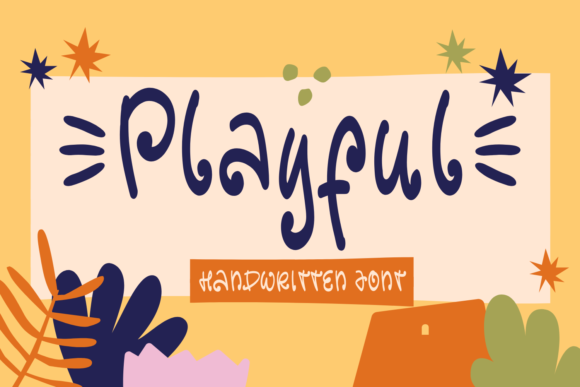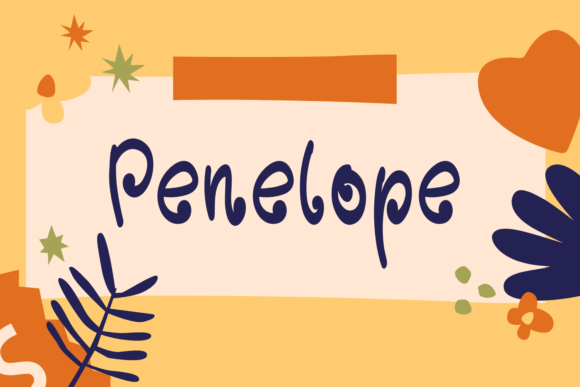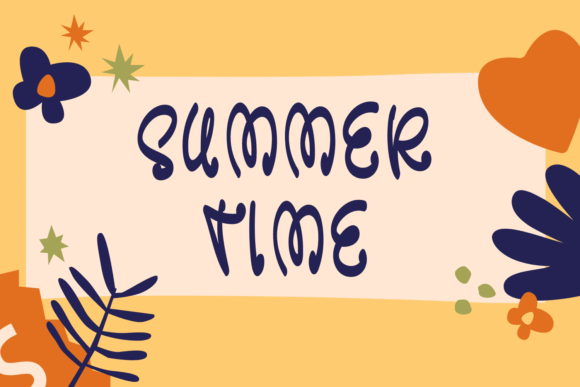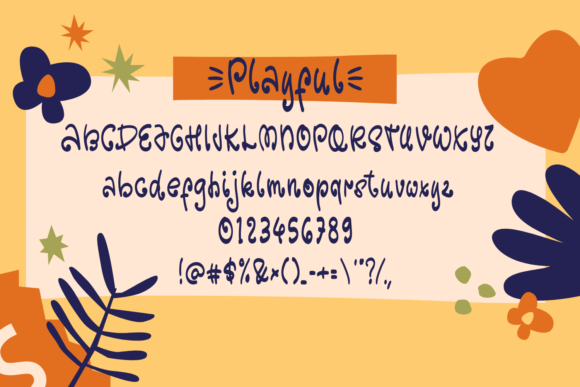
About Playful Font
Playful is a cute and whimsical handwritten font. It embodies playfulness and authenticity and is the perfect choice for any children activity or school project.